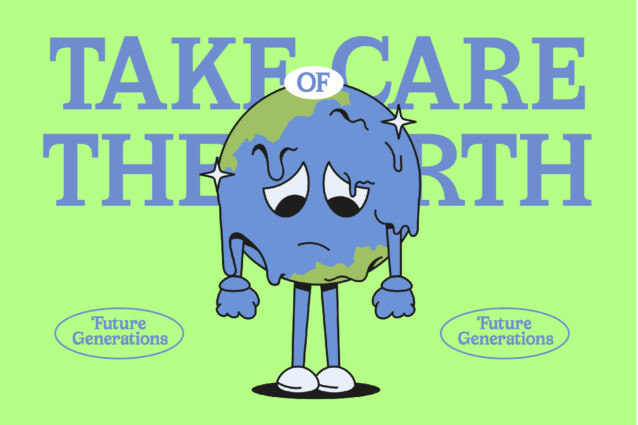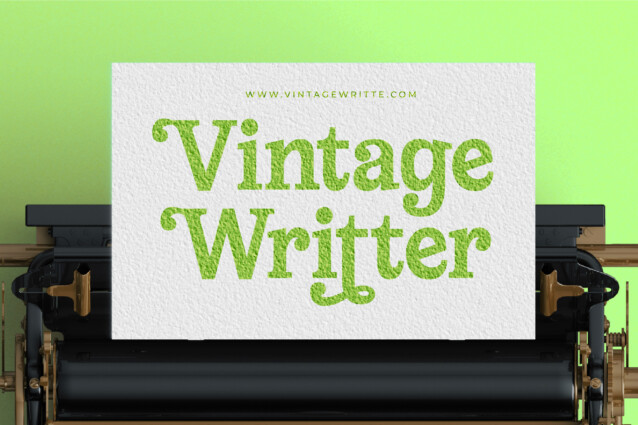
Meridi Rolitud Serif Font
Meridi Rolitud Serif Font, from Timelesstype.Co , Suitable for any projects such as: logos, branding projects, homeware designs, product packaging, mugs, quotes, posters, shopping bags, t-shirts, book covers, name card, invitation cards, greeting cards, label, photography, watermark, special events, and all your other luxury and beautiful projects that need a Luxury Serif taste.